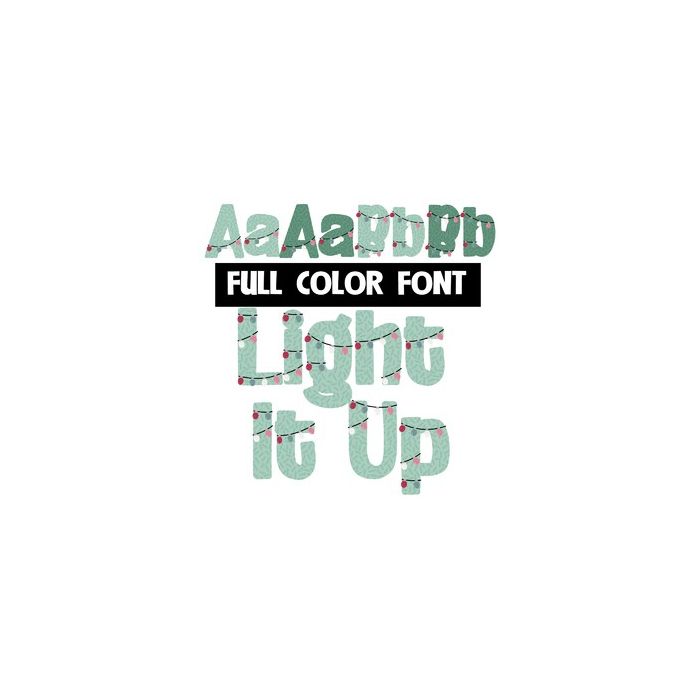
This full-color font features a textured sage green font wearing Christmas lights. There is a an alt version w/ secondary colors available through your system's or Silhouette's glyph map.